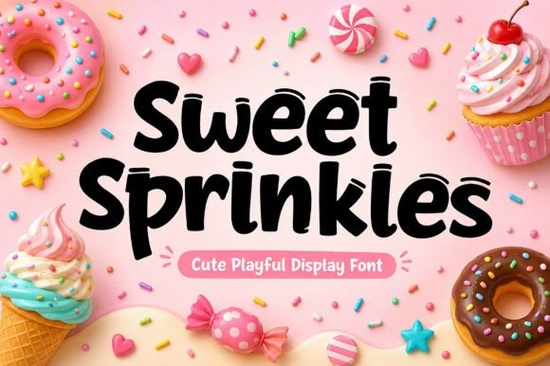
Choosing the right typeface can make or break a design project, especially when you need something that feels fun and inviting. If you are looking for a typeface that brings a sense of joy and sweetness to your work, the Sweet Sprinkles Font is a strong contender. This display font is designed with bold, rounded characters that mimic the look of colorful candies and cupcakes. It is not just about aesthetics; it is about creating an immediate emotional connection with your audience through playful typography.
Designers and crafters often struggle to find fonts that are cute but still readable. This typeface solves that problem by maintaining excellent legibility while keeping a cheerful personality. Whether you are working on children's books, bakery branding, or social media graphics, this tool helps you convey warmth and approachability without sacrificing clarity.
What makes this typeface stand out?
The core appeal of this font lies in its inspiration. It draws directly from confectionery themes, resulting in letters that feel soft and friendly. The rounded edges prevent the text from looking too harsh or corporate. This makes it an ideal choice for projects targeting younger audiences or brands that want to appear accessible.
Where does this font work best?
Practical application is where this typeface truly shines. It is versatile enough for both digital and print environments. Here are some common use cases where this font adds significant value:
- Bakery and Cafe Branding: Use it for logos and menu headers to evoke a sense of taste and fun.
- Children's Products: Perfect for toy packaging, storybooks, and educational materials.
- Print on Demand: Great for t-shirts, mugs, and pillows that require a catchy quote.
- Event Invitations: Ideal for birthday parties and baby showers where a celebratory tone is needed.
If you are selling products on platforms like Etsy or Shopify, having unique typography can help your listings stand out. You can create custom graphics for your product mockups that align with the playful nature of your items. For example, if you are selling handmade cookies, using this font on your packaging labels reinforces the homemade, sweet quality of the product.
How do you pair it with other styles?
Typography pairing is an art form. Since this font is quite bold and rounded, it works best when paired with simpler, cleaner sans-serif fonts for body text. This ensures that the main message remains readable while the headline captures attention.
For projects that require a retro feel, you might consider mixing this with other vintage-inspired types. You can check out groovy bubble types to see how similar shapes behave in a 70s context. Combining these styles can create a cohesive theme for posters or album covers that need a nostalgic touch.
Energy is another factor to consider. If your design needs to feel dynamic and active, looking at see more bounce variations can give you ideas on how to arrange your text. Motion and flow in typography can guide the viewer's eye across the page effectively.
Practical Tips for Using Display Fonts
Before you finalize your design, keep these quick checks in mind to ensure the best results:
- Check Legibility: Always view your text at the actual size it will be printed or displayed.
- Contrast Matters: Ensure there is enough color contrast between the text and the background.
- Spacing: Adjust kerning and leading to prevent the rounded characters from touching awkwardly.
Starting with a clear plan for your typography will save you time during the revision process. Remember that the goal is to enhance your message, not distract from it. By choosing a font that aligns with your brand's personality, you create a more memorable experience for your customers.